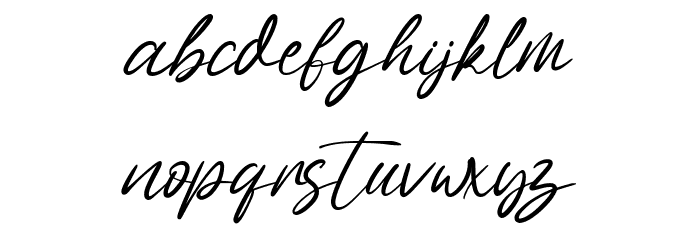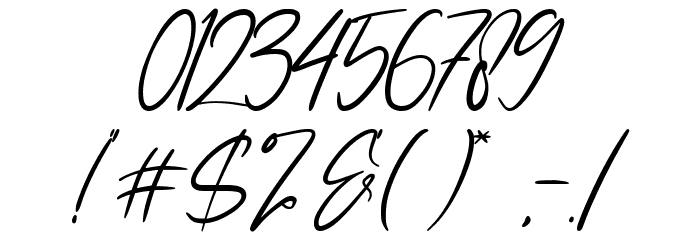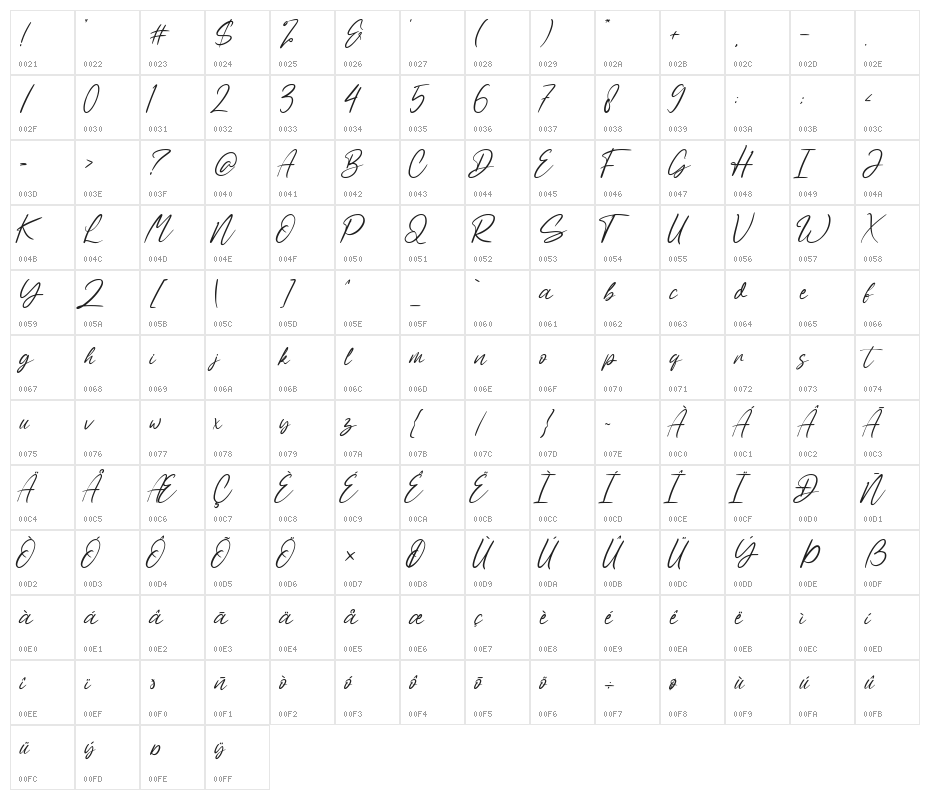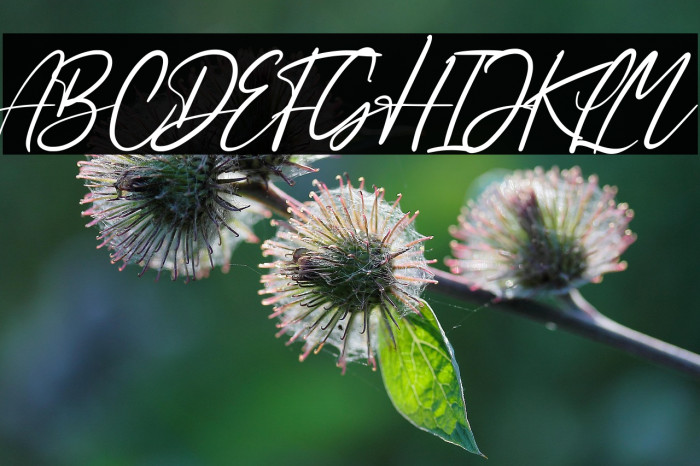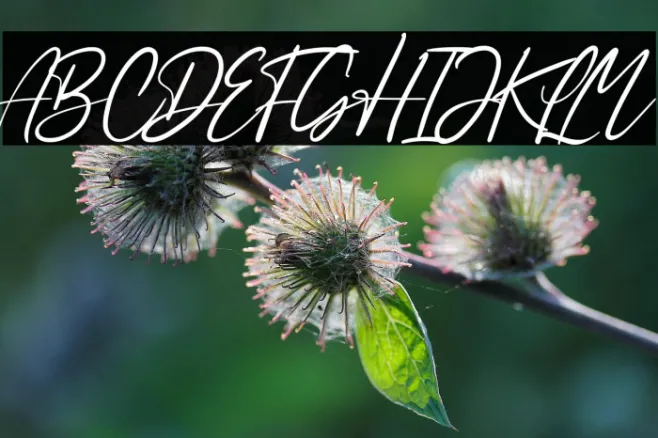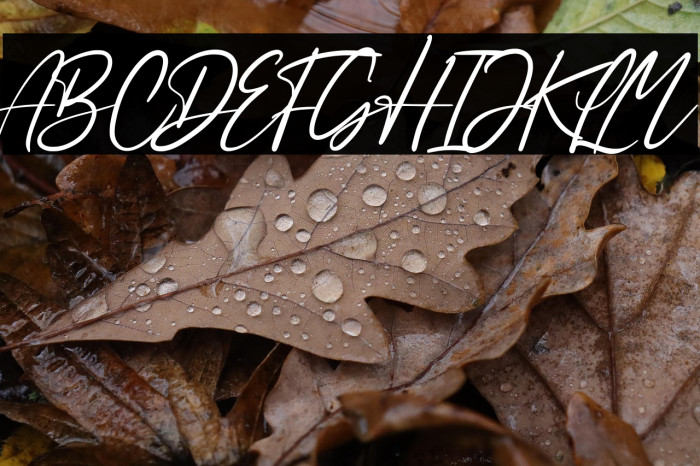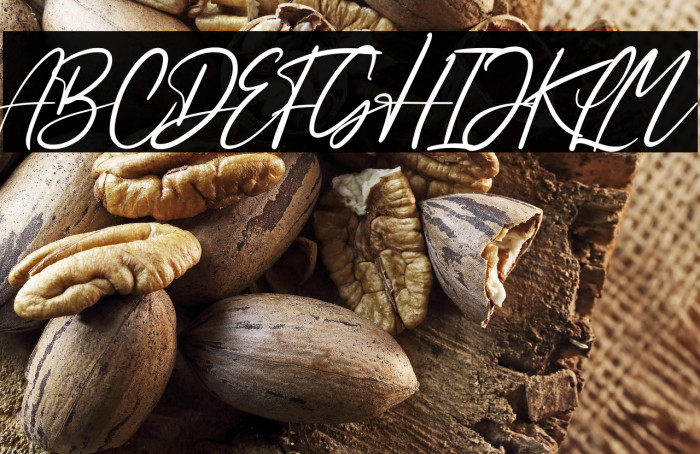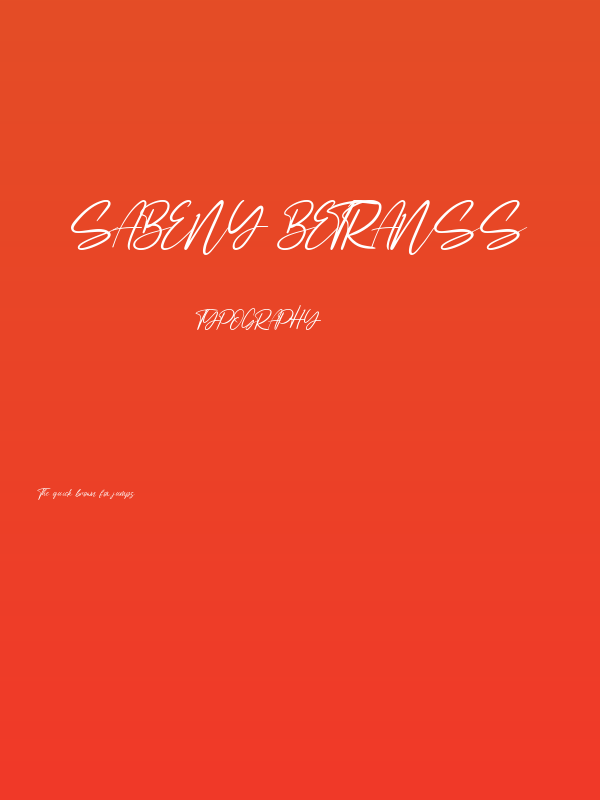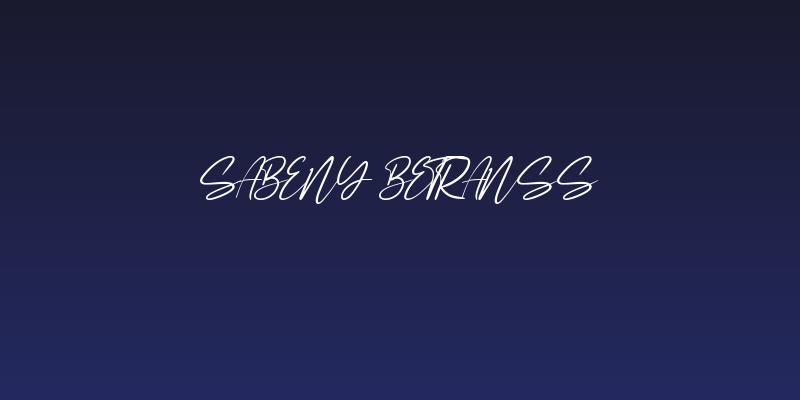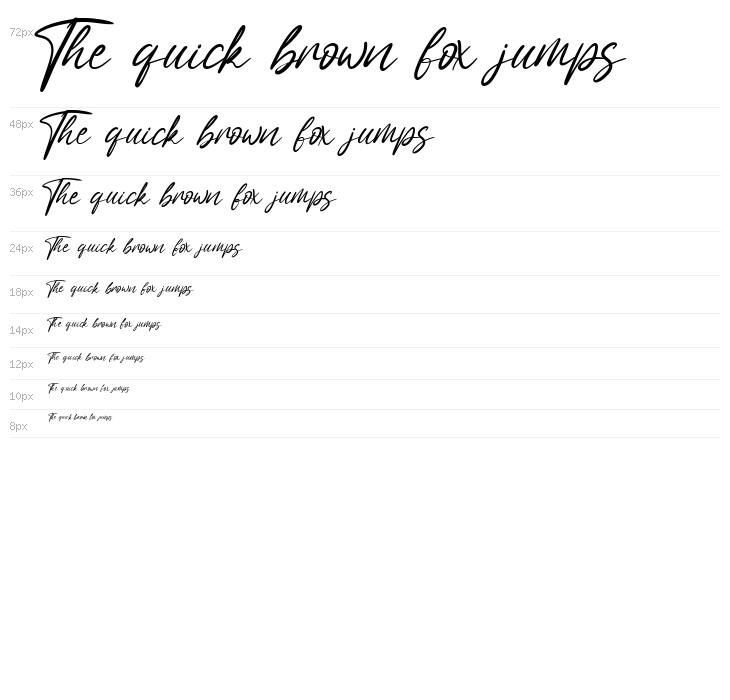
Sabeny Betranss Font
This font exudes a dynamic and expressive style, characterized by its flowing, cursive script. The letters are elegantly connected, creating a sense of movement and fluidity. The uppercase letters are bold and prominent, while the lowercase letters maintain a consistent flow, enhancing readability. The numbers and special characters are crafted with the same attention to detail, ensuring a cohesive look across all elements. This font's handwritten appearance gives it a personal and artistic touch, making it ideal for creative projects.
A dynamic, cursive script font with flowing, connected letters.
- Font: Sabeny Betranss
- Proposed Projects: Ideal for wedding invitations, greeting cards, branding, and artistic projects.
- Category: Script
- Character Spacing: Tight
- Use Case: Logos, Headlines, Invitations